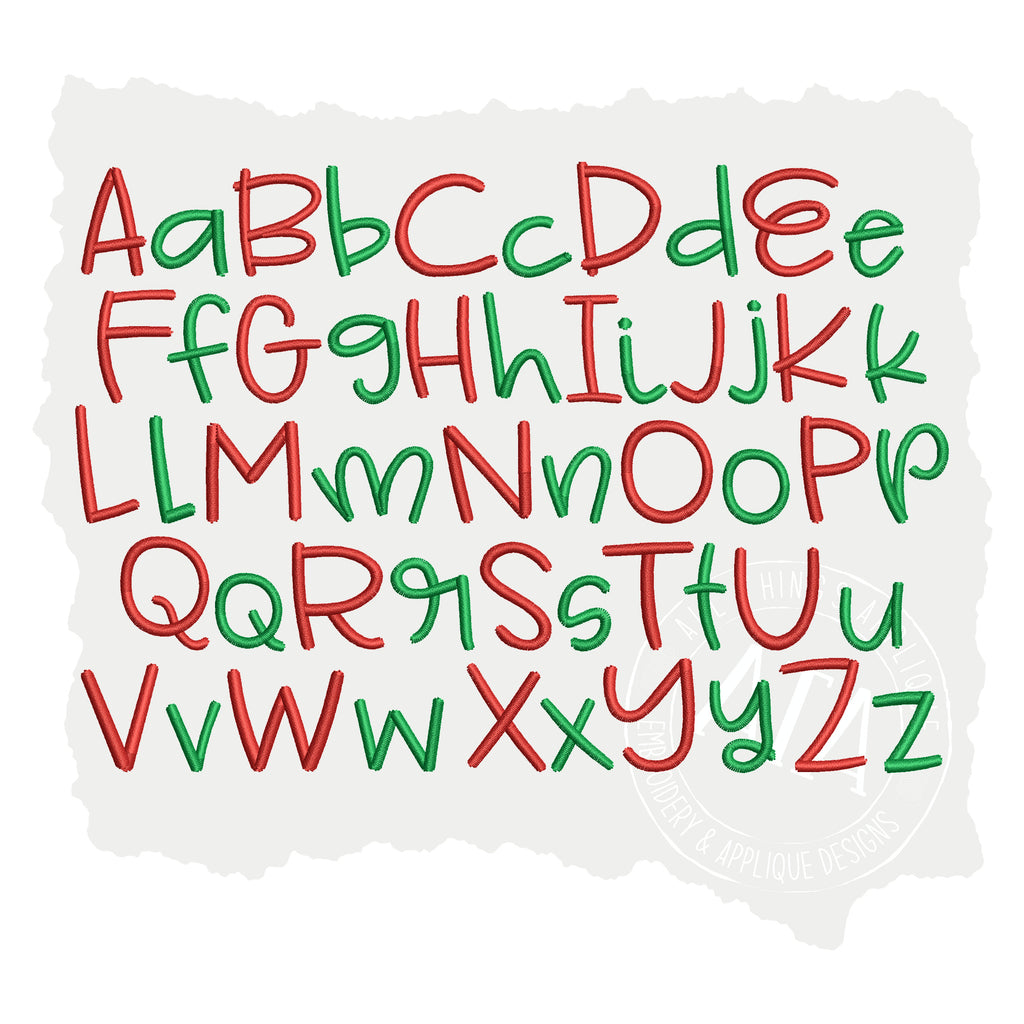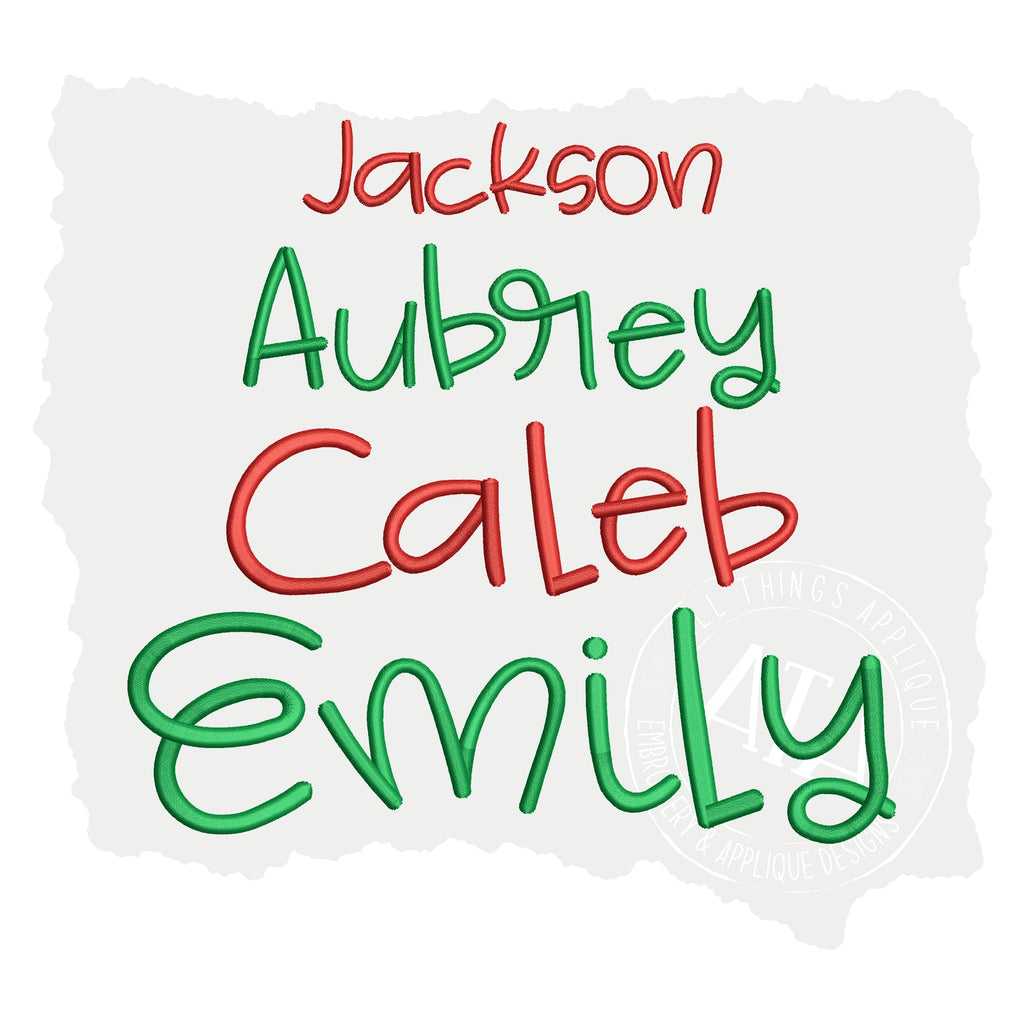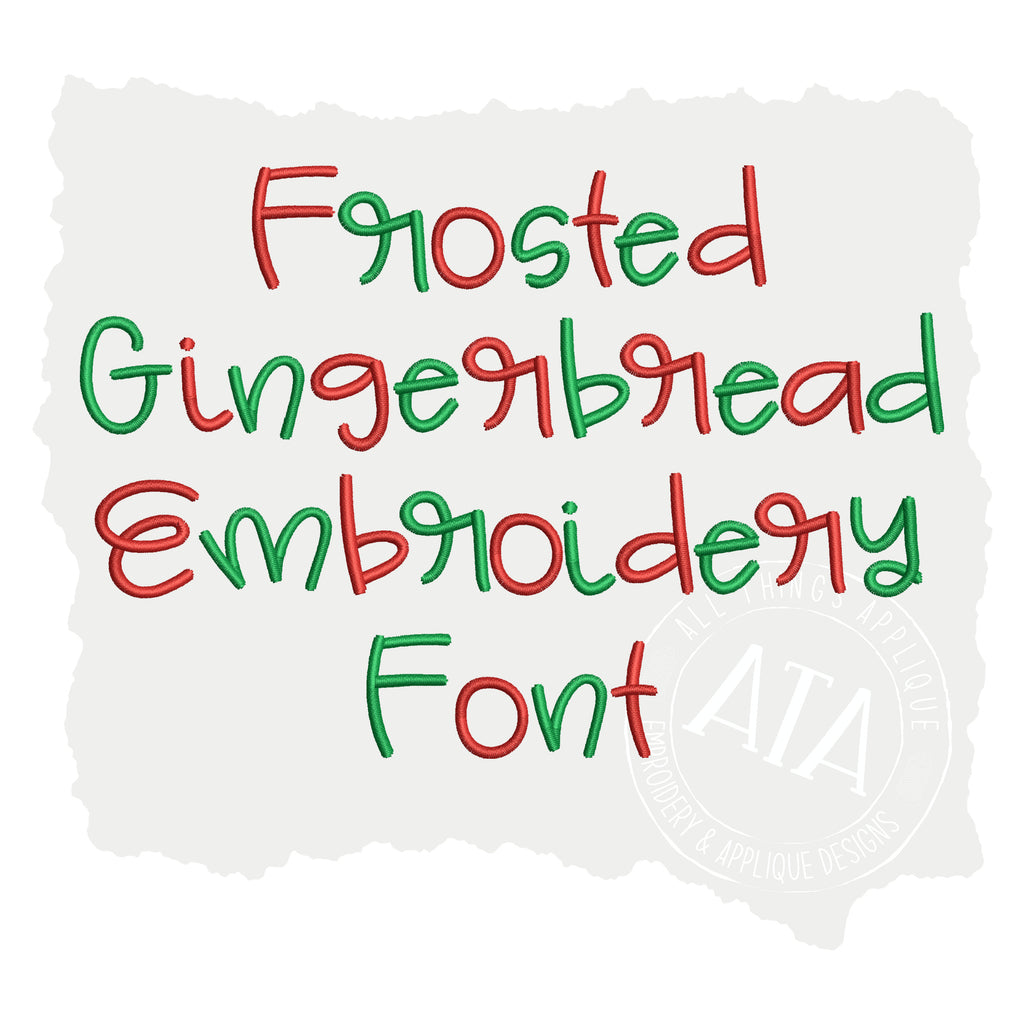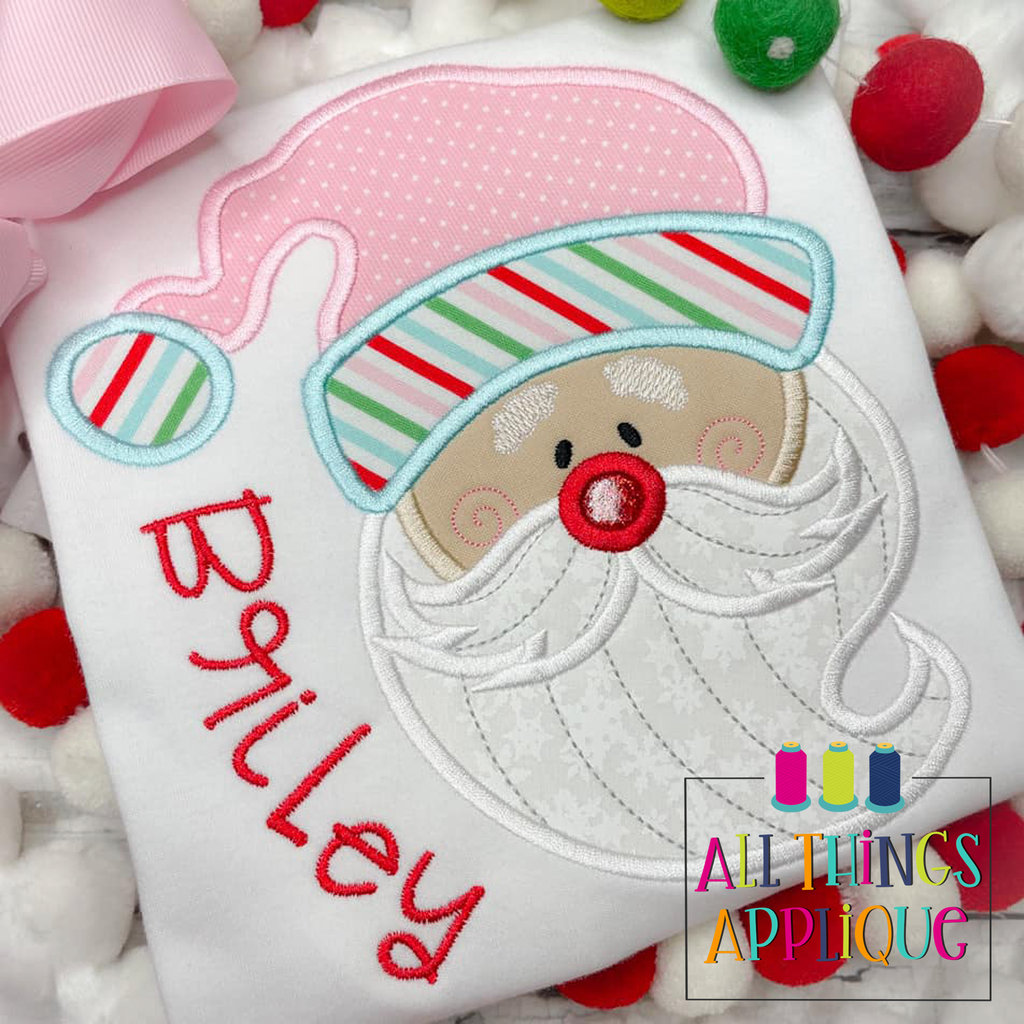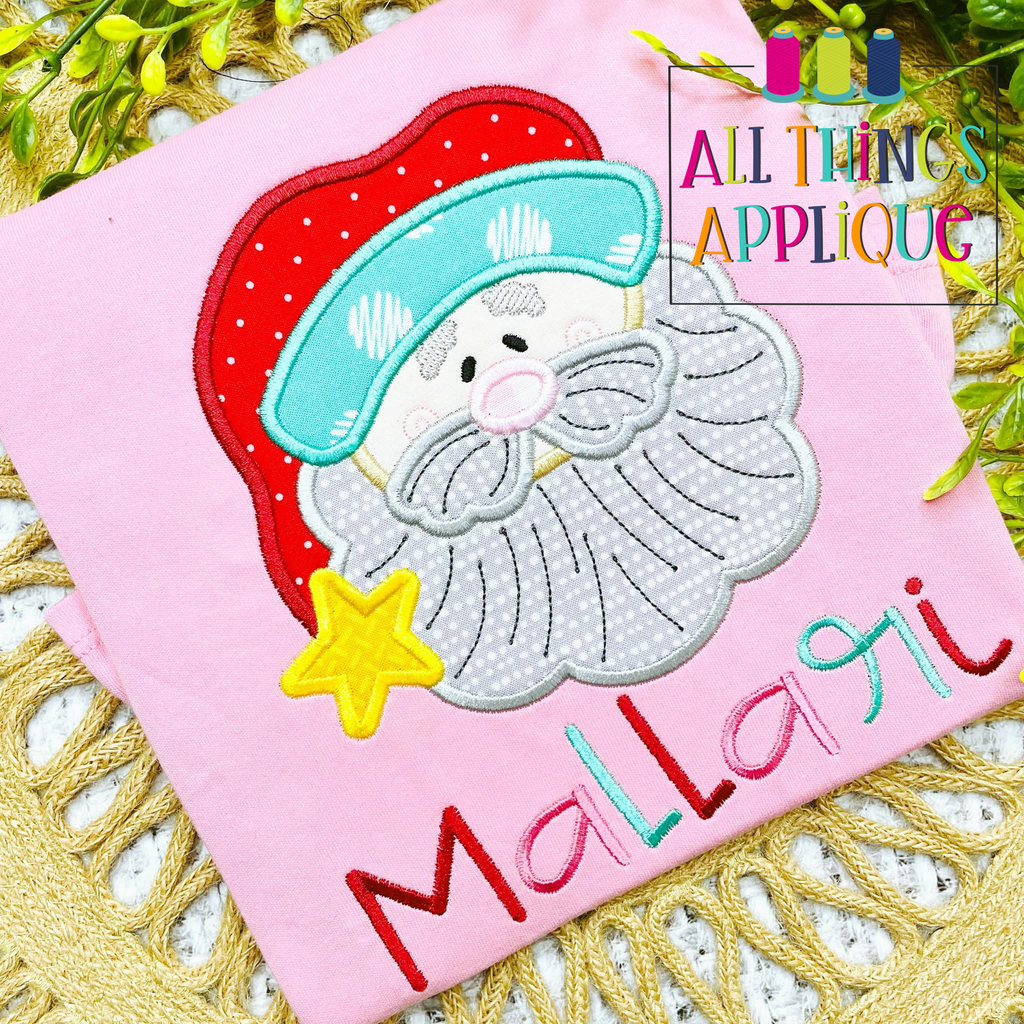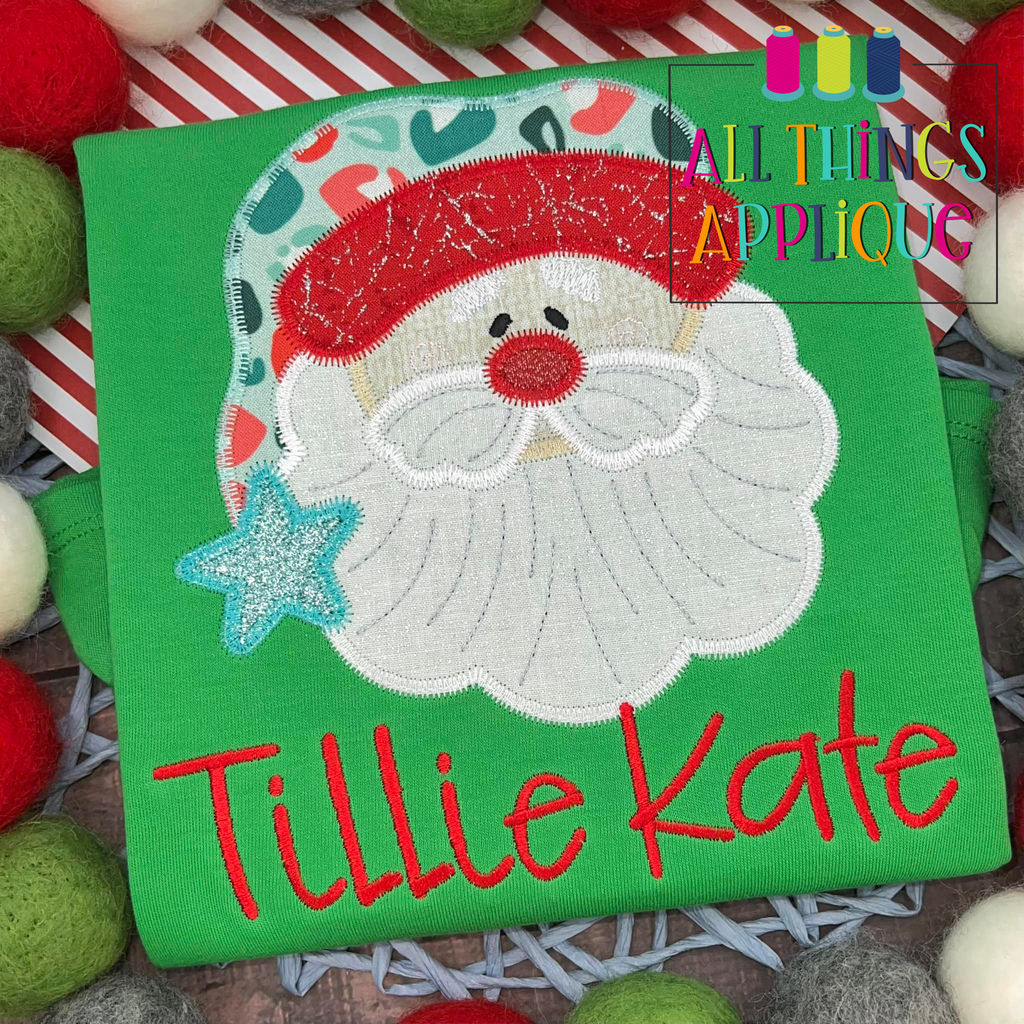
Frosted Gingerbread Satin Stitch Font
About the Frosted Gingerbread Embroidery Font
The Frosted Gingerbread Embroidery Font is an Embroidery Font created/digitized in 2022 by All Things Applique for use on your embroidery machine.
This font pairs perfectly with our Christmas Santa designs and would look great on Christmas stockings too!